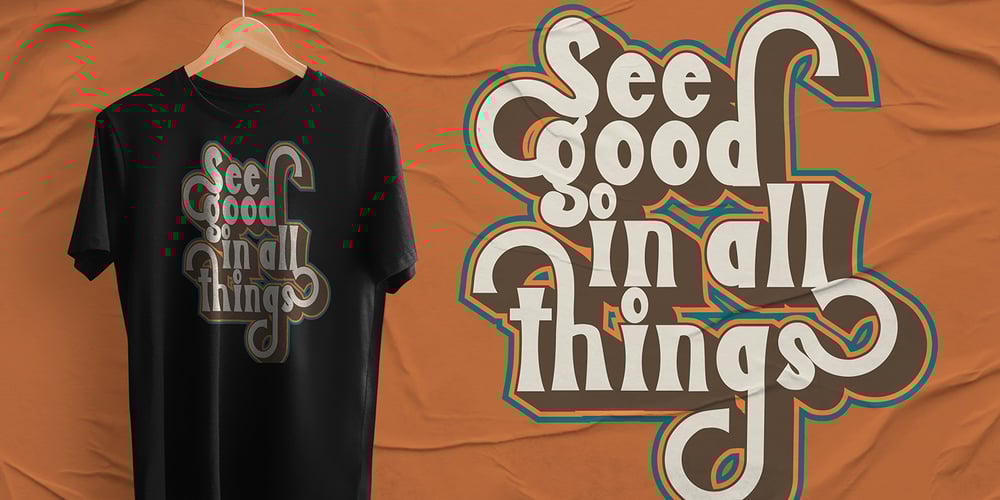
The Some One Retro Font Family was designed by Sipanji and published by Sipanji21. The Some One Retro contains 2 styles and family package options. “The Some One” is a display font with a retro theme, featuring several alternative styles that can help elevate your designs. It is ideal for a wide range of design projects, such as car decals, t-shirt designs, or logos for retro-themed branding. With its unique and stylish appearance, “The Some One” adds a touch of nostalgia and sophistication to your designs. The font’s retro feel makes it perfect for designs that require a vintage or classic look, while the alternative styles allow for flexibility and customization. Whether you’re creating a bold and eye-catching design or a more subtle and understated one, “The Some One” is the font you need to make your designs truly exceptional.